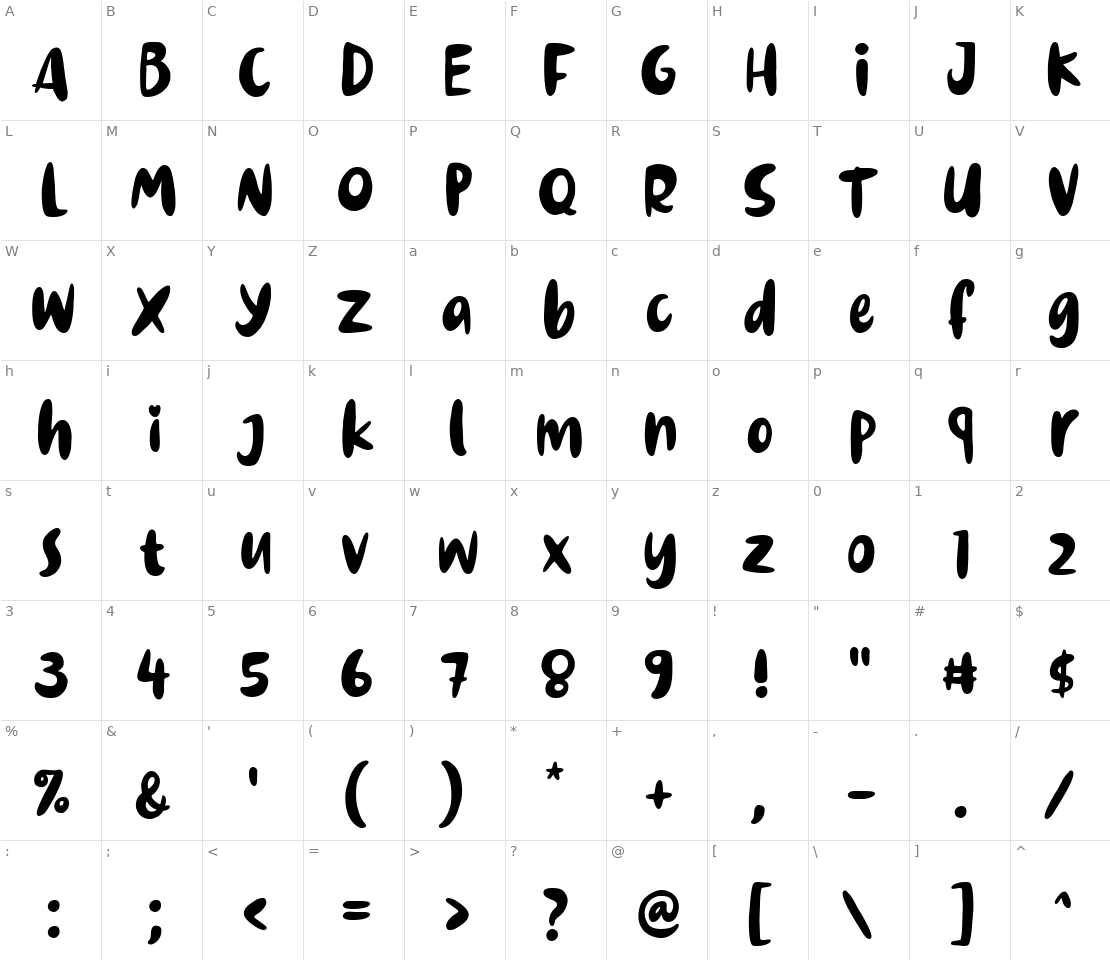
Dinomiko
Dinomiko is a chunky, rounded handwritten face from 7NTypes with bold strokes that feel like a kid going at it with a thick crayon. The heavy letterforms stay playful and loose, with enough personality to carry children's books, toy packaging, party invitations, or any display work that needs to feel fun and approachable without getting too precious about it.